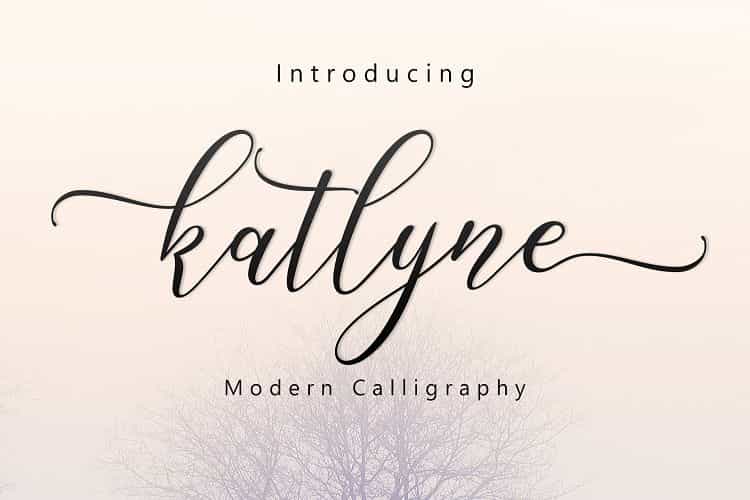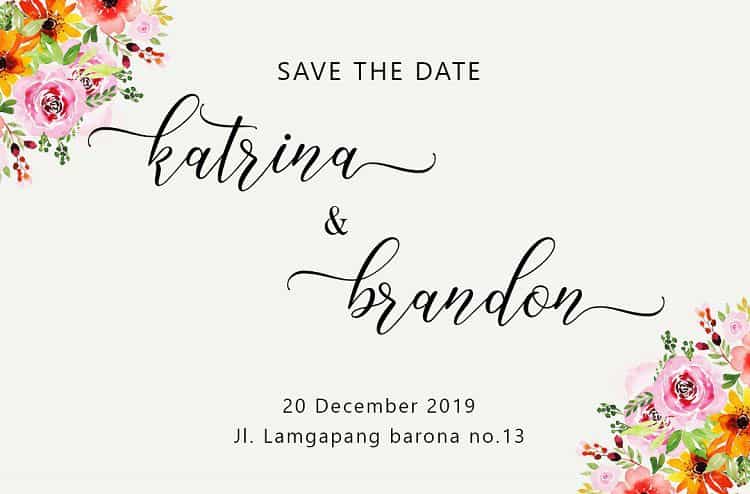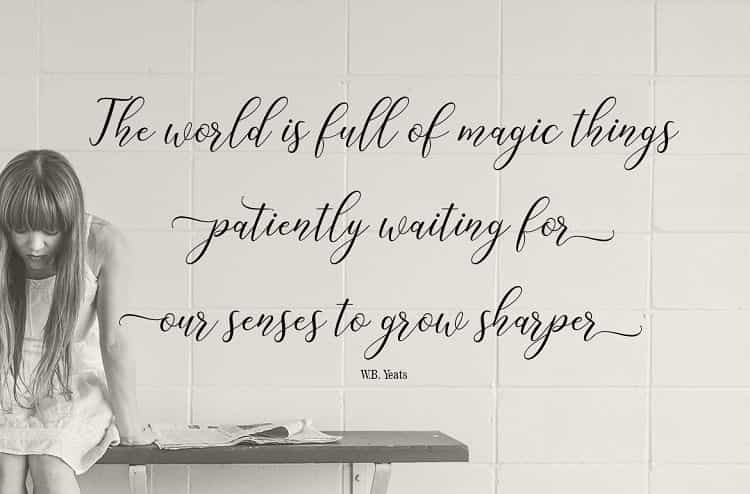
Introducing Katlyne Font. Katlyne is a handmade typeface, with cute character and a very bouncy baseline :(A de la Cabrera 22), (Mokritskii A. et al.). Katlyne Script includes 250+ glyphs. The alternative characters were divided into several Open Type features for example Swash, Stylistic Sets, Stylistic Alternates and Contextual Alternates. The Open Type features can be.